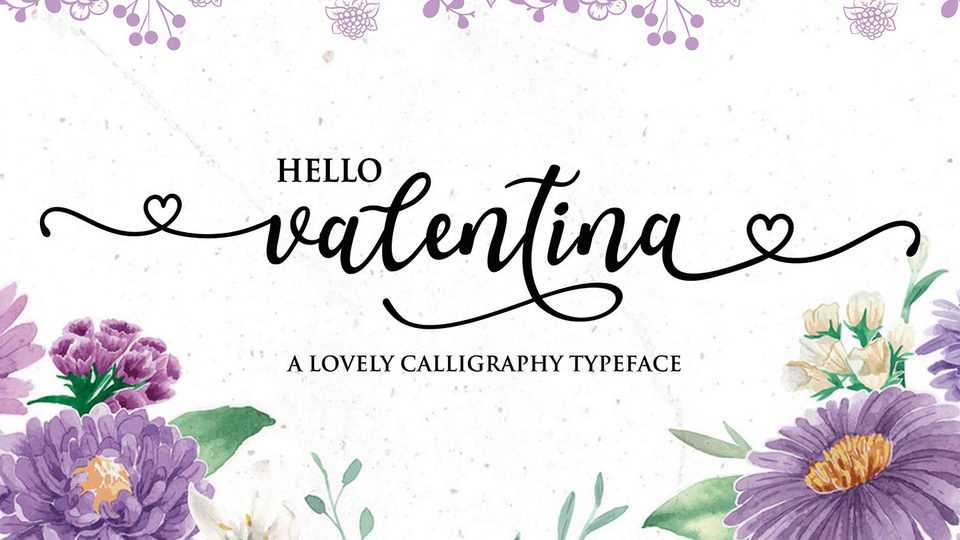
Download Valentina font, a lovely calligraphy typeface. As it’s name implies, Valentina is a charming, romantic font – perfect for weddings, Valentine’s Day and anniversary celebrations.
Designer: Girinesia Studio